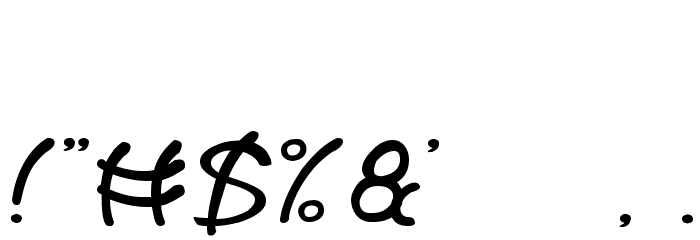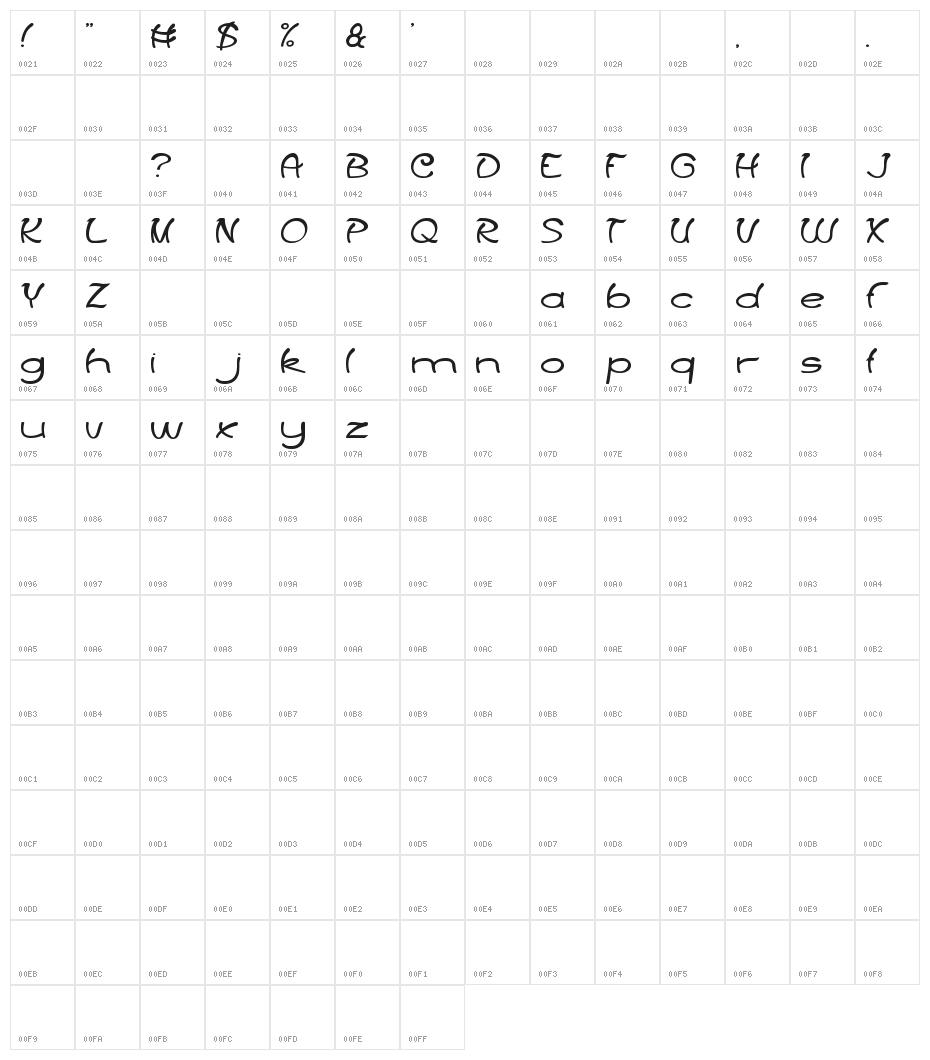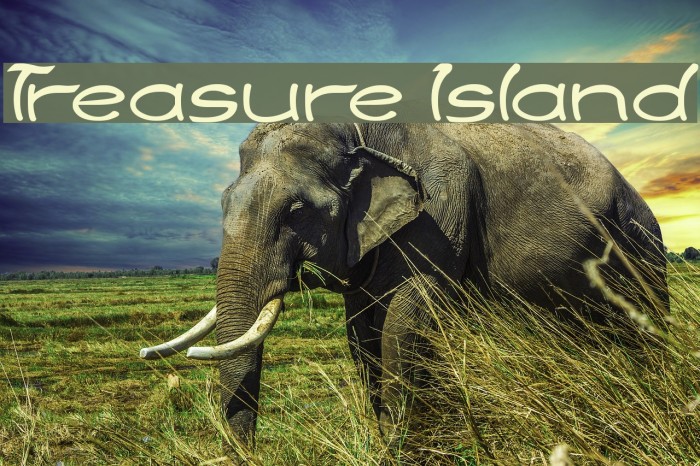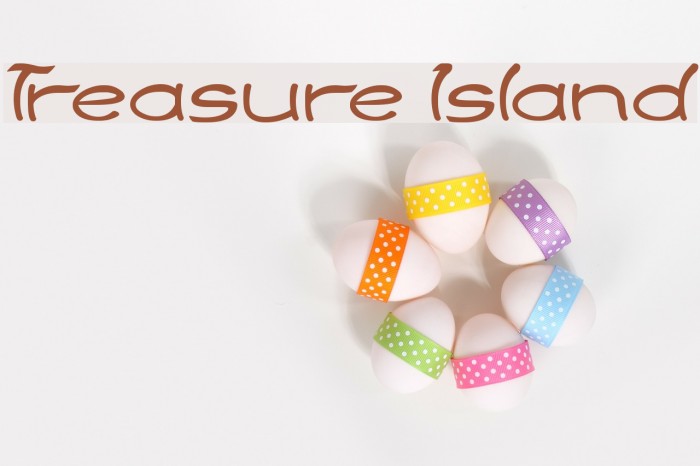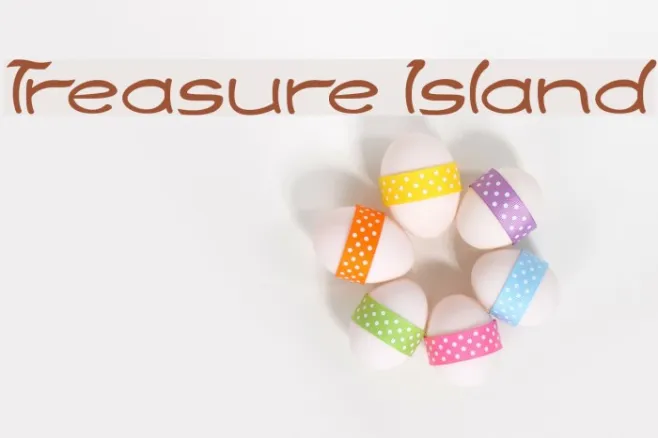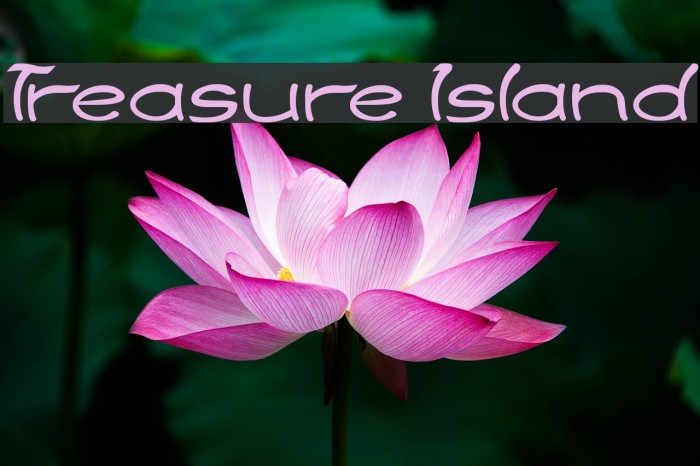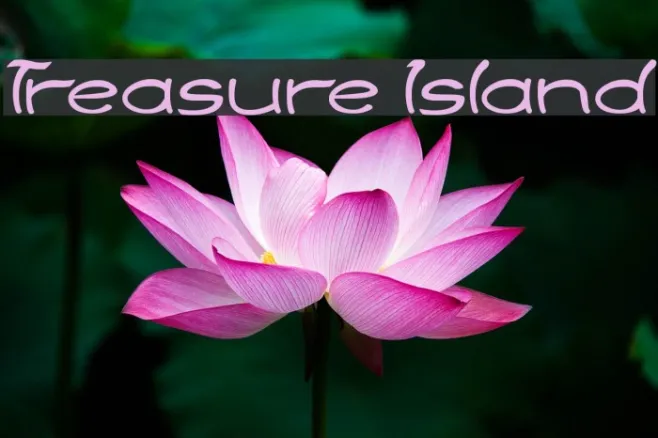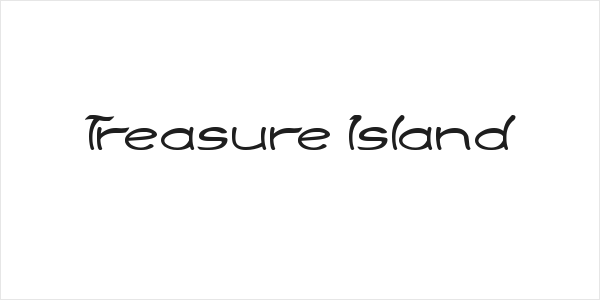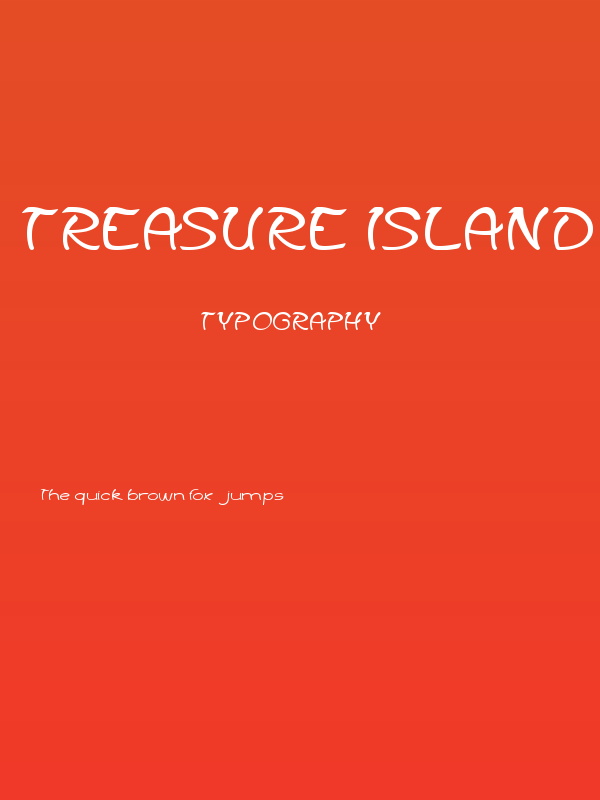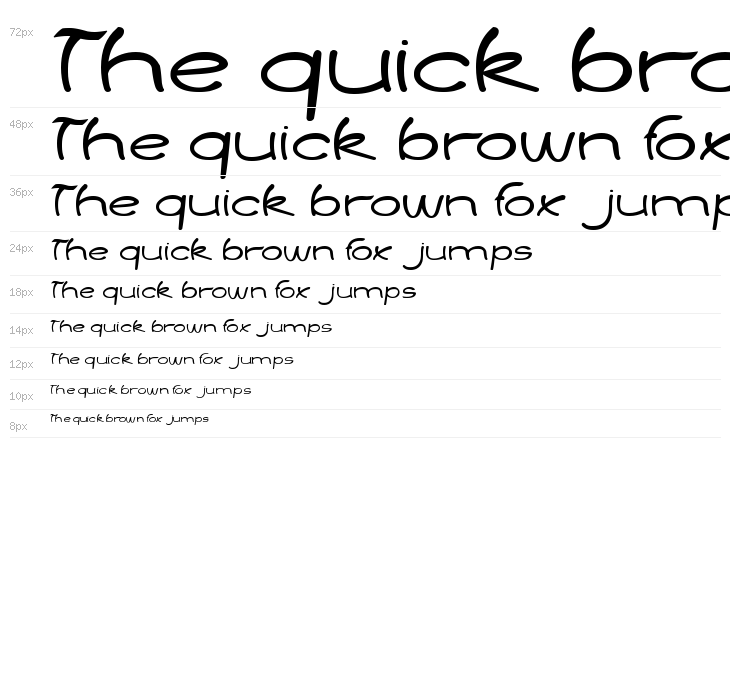
Treasure Island Font
Treasure Island Description
This font features a playful and whimsical style, characterized by its rounded and slightly irregular letterforms. The strokes are smooth and flowing, giving it a handwritten appearance that exudes a sense of fun and creativity. The uppercase and lowercase letters maintain a consistent style, with a slight slant that adds to its casual feel. The numbers and special characters are designed to match the overall aesthetic, ensuring a cohesive look across all text. This font is ideal for projects that require a touch of personality and charm.
| Proposed Projects | Ideal for children's books, greeting cards, playful branding, and creative posters. |